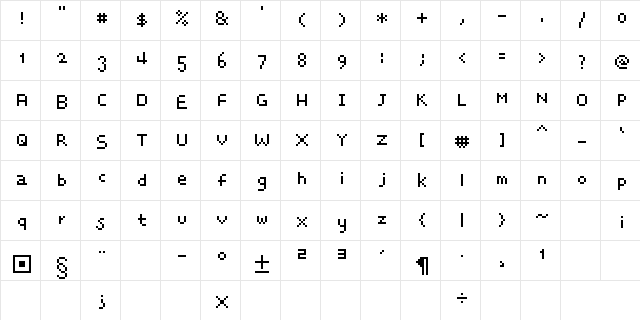
nari9 Regular
Design Context for nari9 Typeface
nari9 is a composed and adaptable typeface that performs quietly and consistently across a wide range of design contexts.